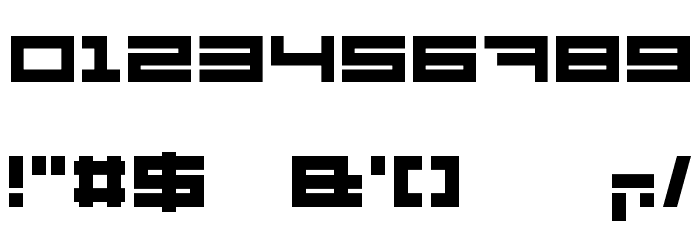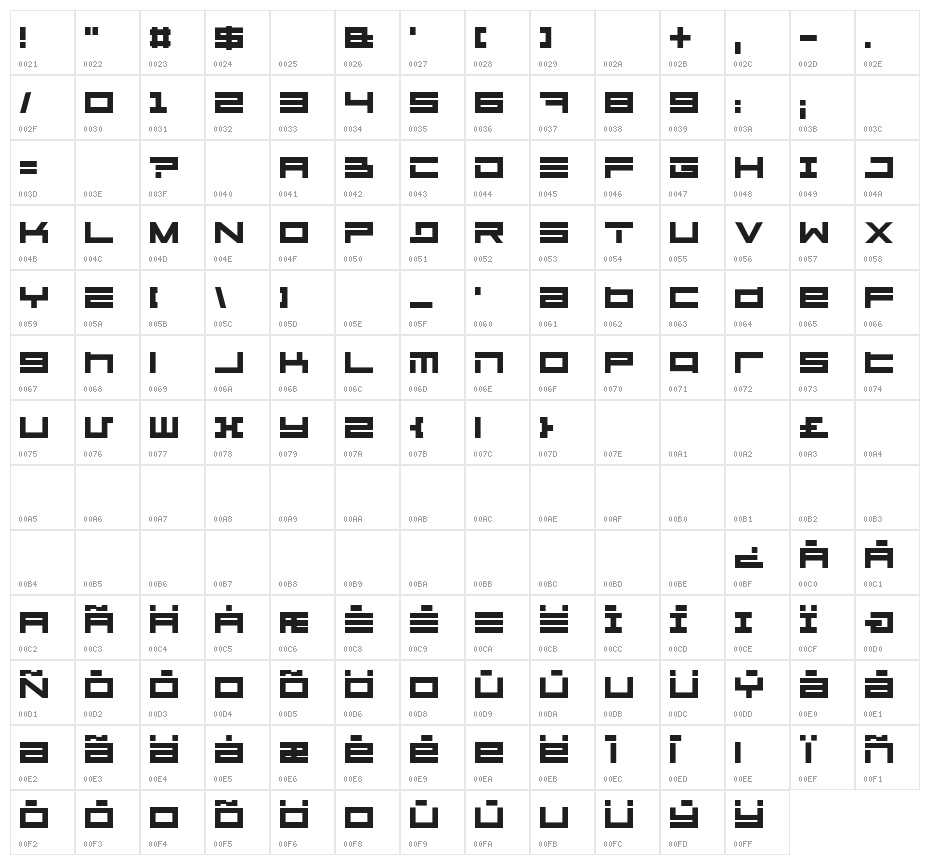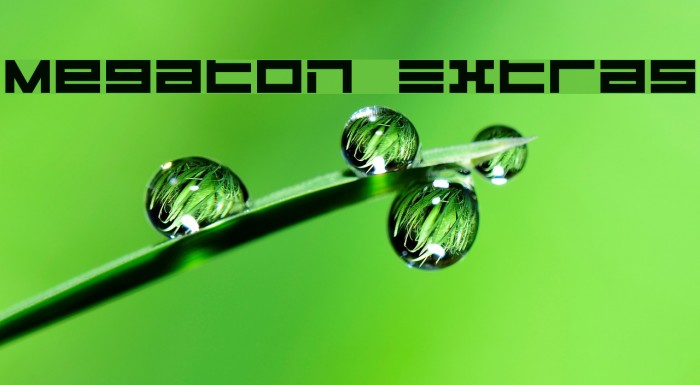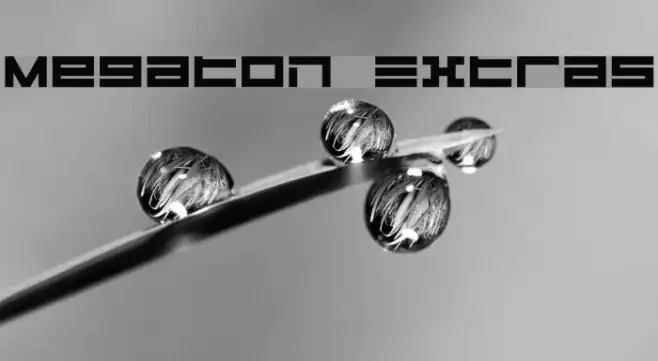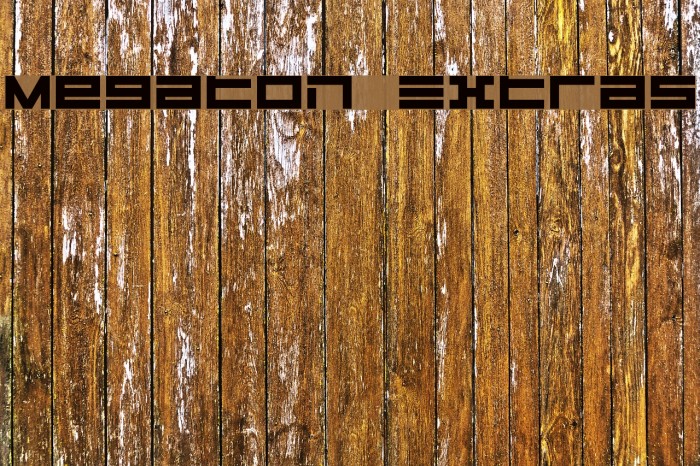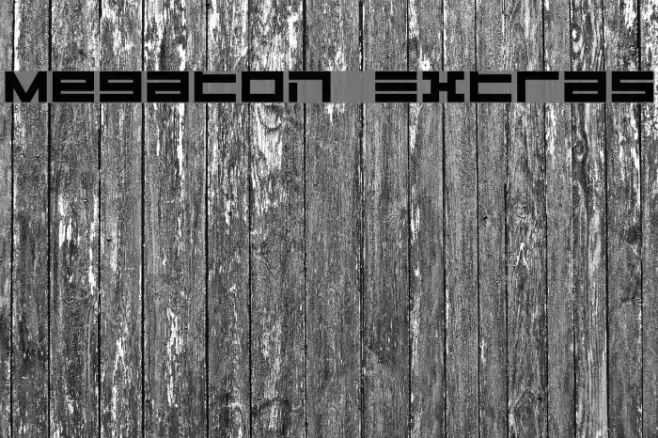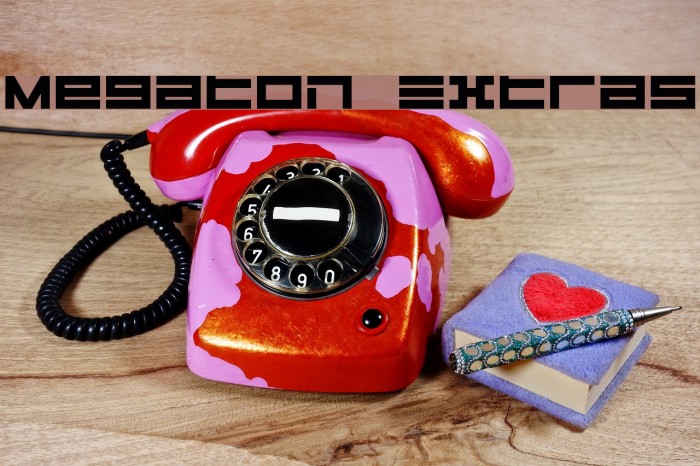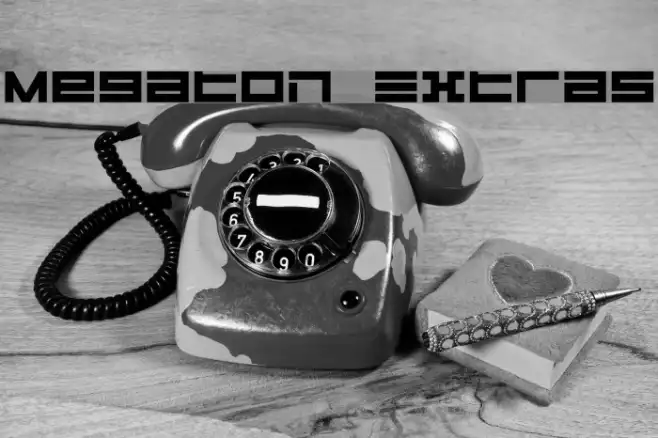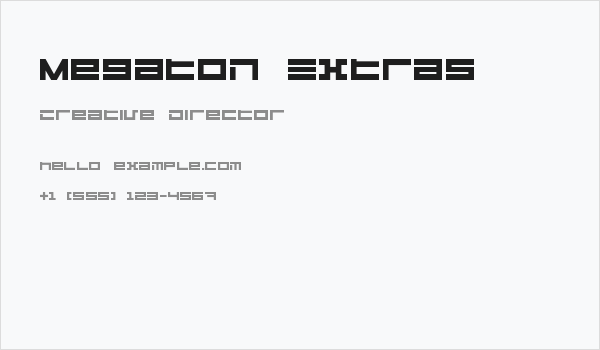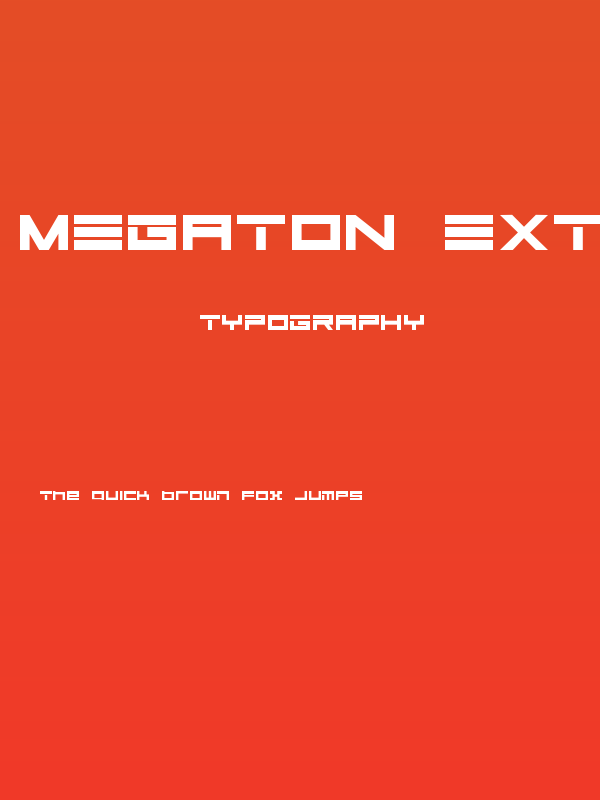
Megaton Extras Font
This font features a bold, geometric design with a futuristic and industrial feel. The characters are constructed with thick, block-like strokes, giving them a strong and impactful presence. The angular shapes and sharp edges contribute to its modern aesthetic, while the consistent stroke width across all characters ensures a uniform appearance. The font's design is highly legible, making it suitable for various display purposes. Its unique style is characterized by a blend of straight lines and right angles, creating a sense of precision and strength.
Overall StyleFuturistic, Industrial
Proposed ProjectsIdeal for technology branding, video game titles, sci-fi movie posters, and industrial-themed designs.